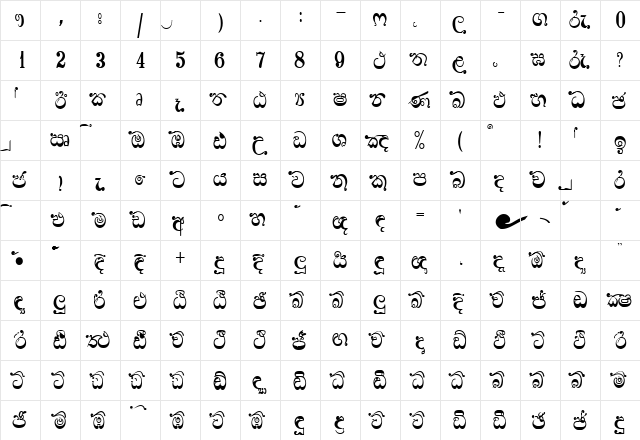
DL-MANO**. Normal Font Preview
DL-MANO**. Normal
DL-MANO**. Normal Font Details
Design Context for DL-MANO**. Typeface
DL-MANO**. offers clean, dependable letterforms without strong stylistic allegiance, making it a practical choice for designers who need flexibility.
Pro Tip: Use DL-MANO**. in both headline and body roles to test its range before committing to a single application.